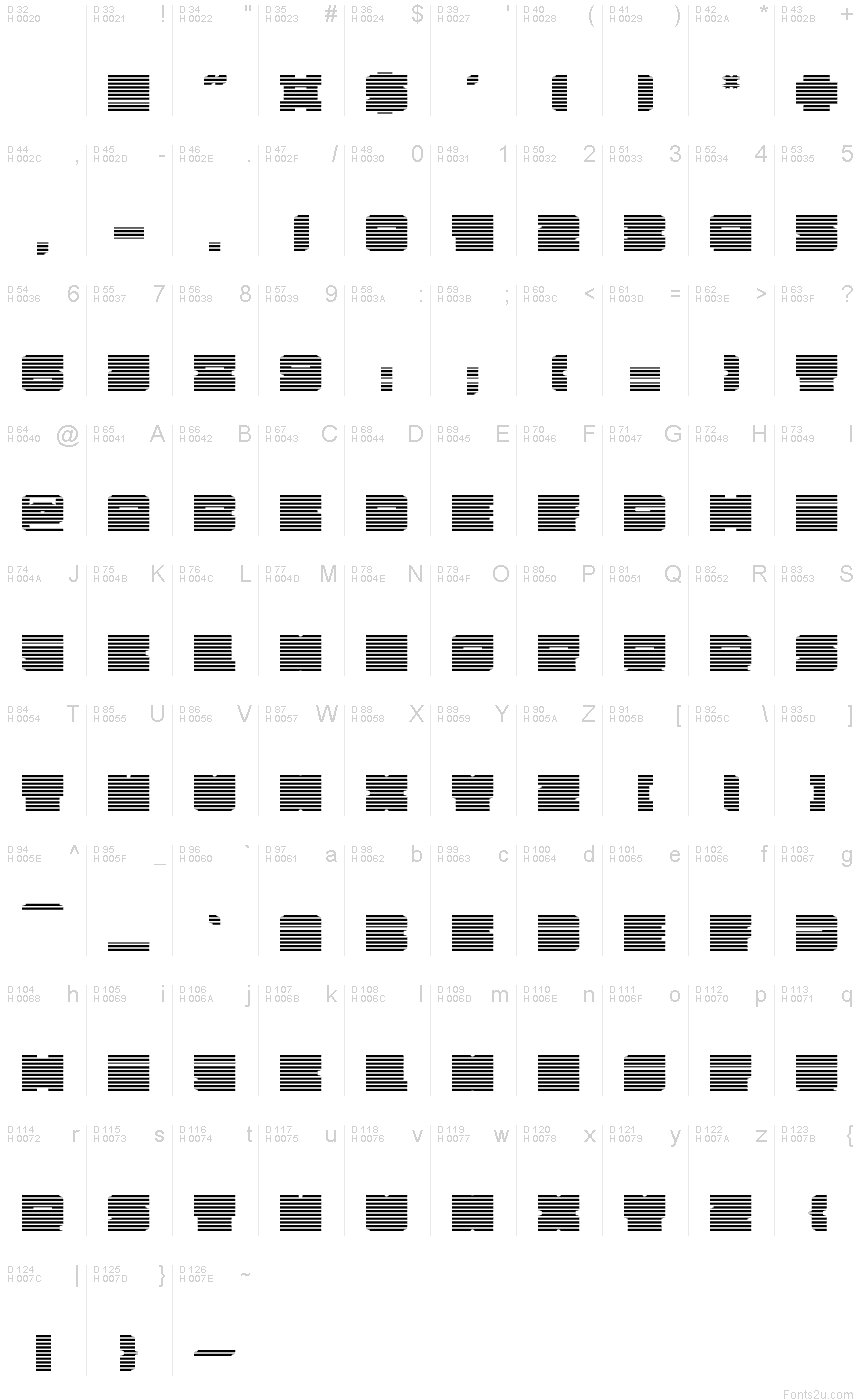
00ne Alpha Sweeping by neurone error of FontStruct is a free barcode-style display font built from tightly stacked horizontal bands separated by narrow, regular gaps. Broad, squared letter shapes emerge through carefully placed breaks in the stripes, and their blunt rectangular silhouettes suggest electronic signs, scanlines, and coded transmission graphics.
Electronic music posters are its clearest fit. The same repeated bands suit album artwork, arcade game interfaces, streetwear prints, and promotional tech event graphics because the motif can function as lettering, signal interference, or part of a larger coded pattern.